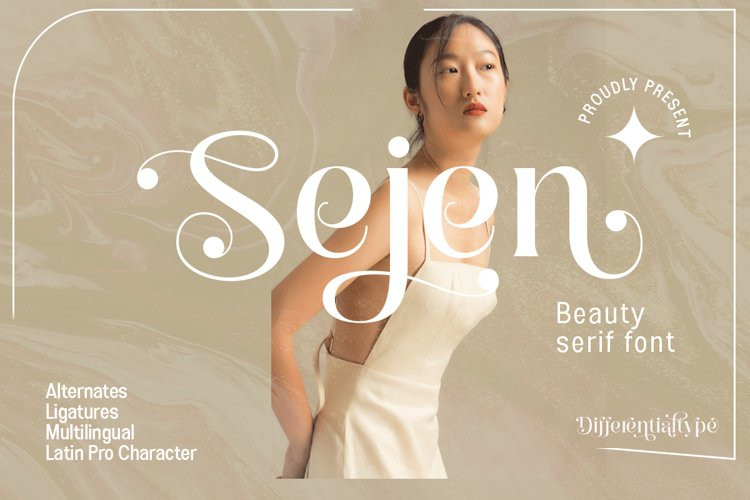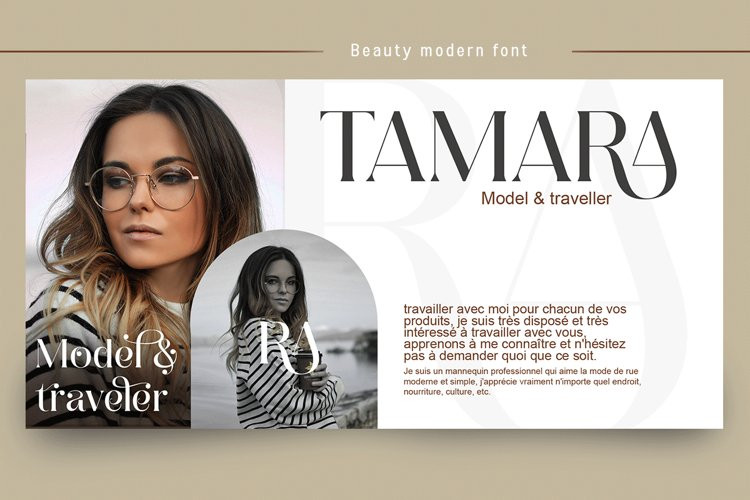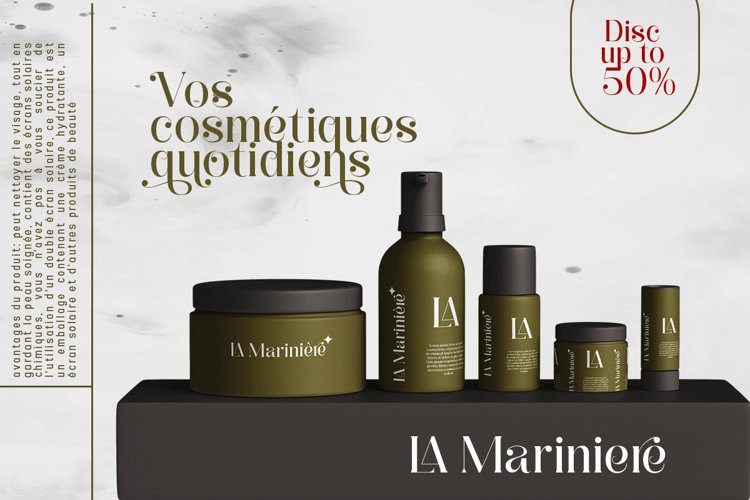
Sejen Font
Sejen FontSejen is a beautiful and elegant font, perfect for branding, logos, invitation cards, and more. Adding it to any of your projects will add a touch of luxury.
This font is PUA encoded, which means you can access all of the glyphs and swashes with ease!